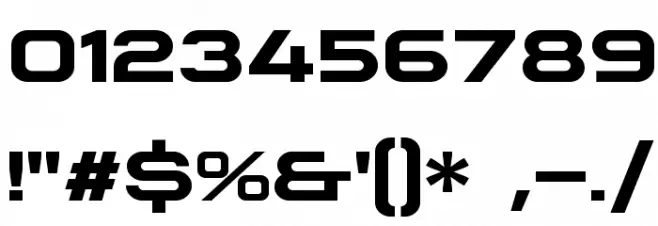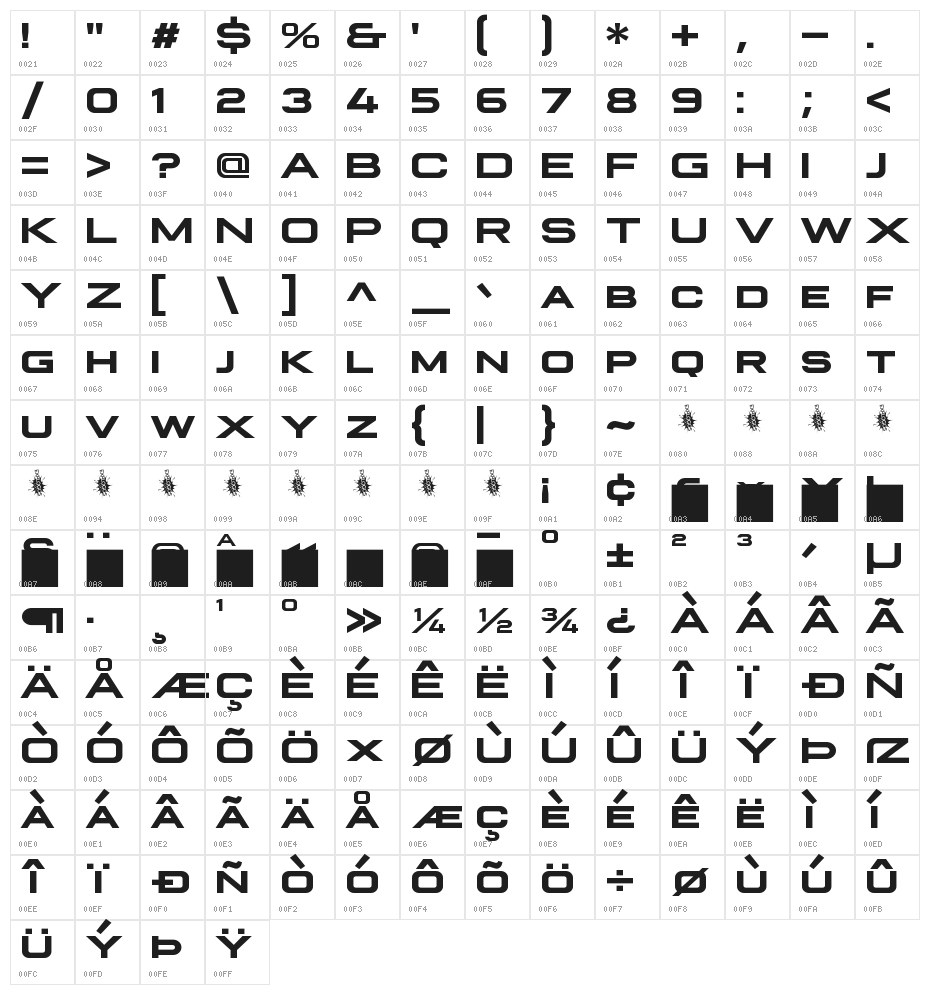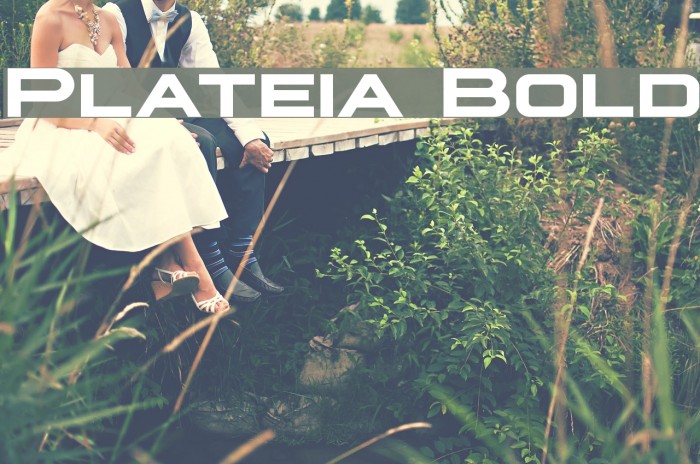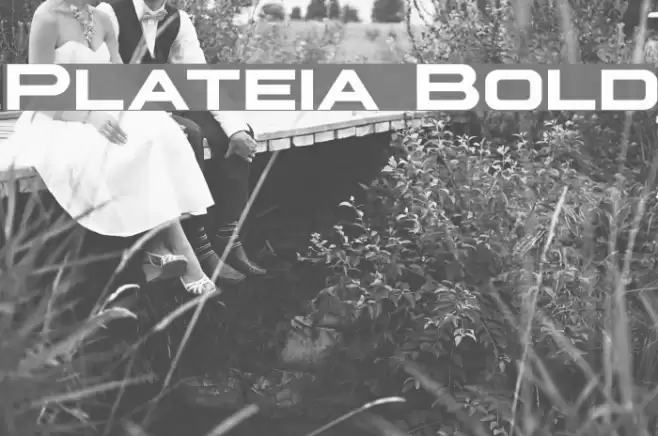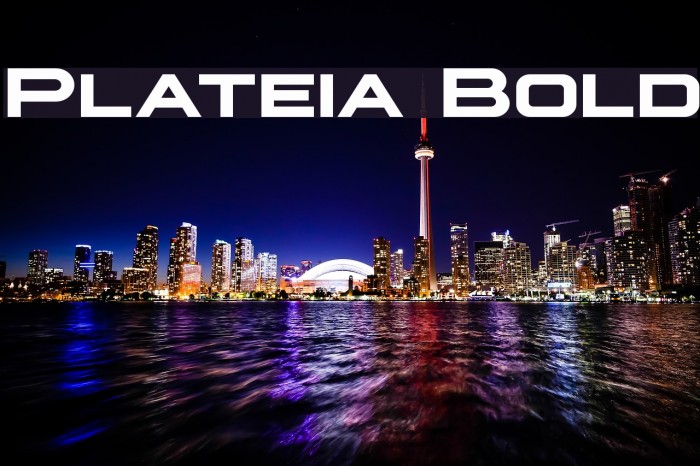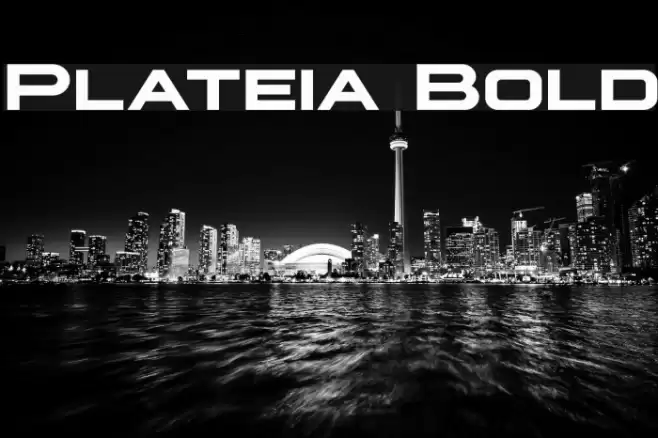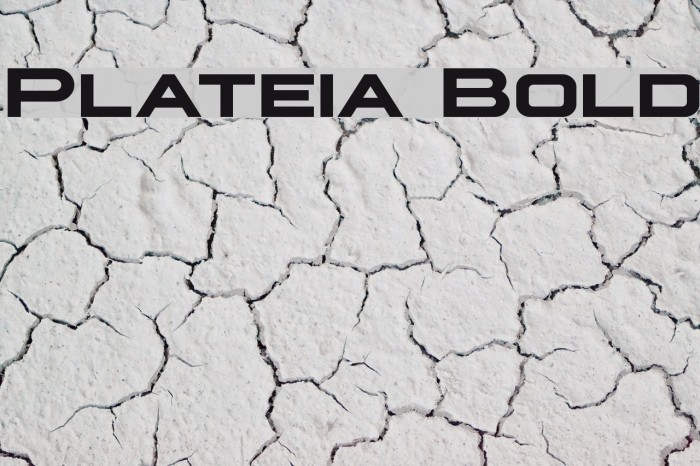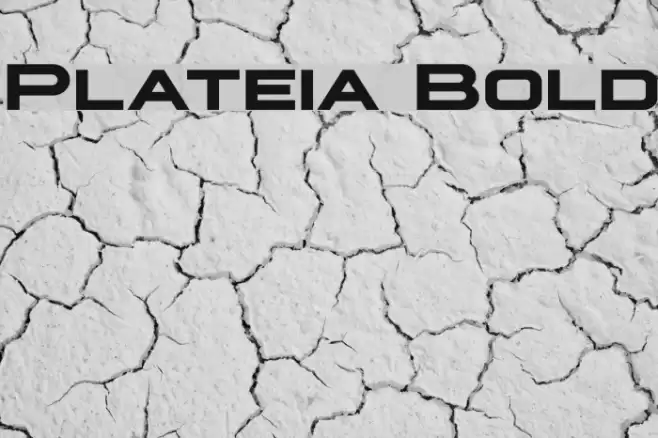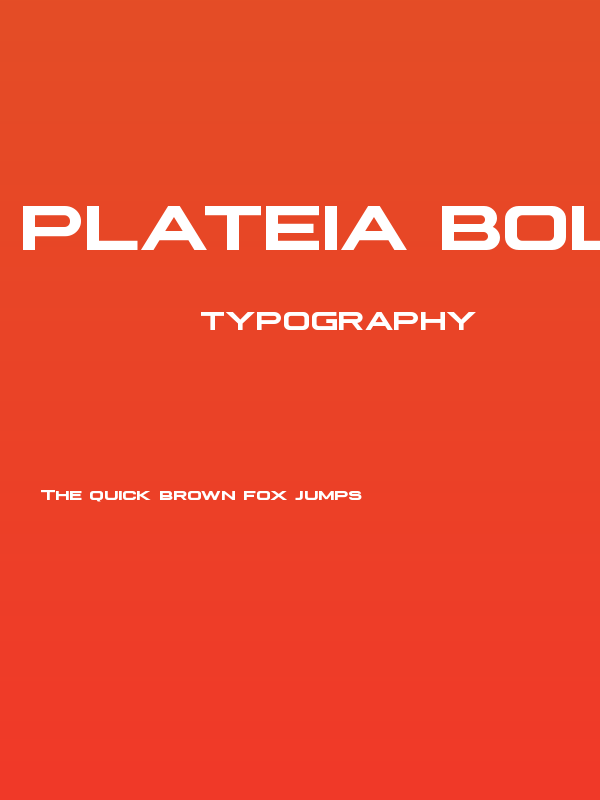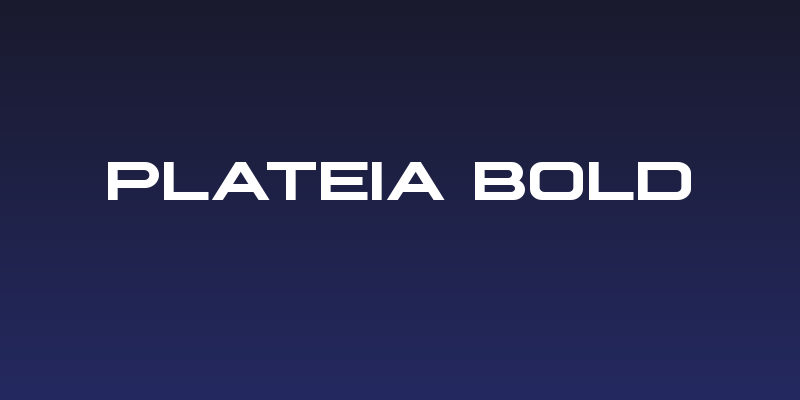
Plateia Bold Font
Plateia Bold Description
This font features a bold and modern design with a strong geometric structure. The characters are wide and have a consistent stroke thickness, giving them a robust and impactful appearance. The uppercase letters are particularly striking, with sharp angles and clean lines that convey a sense of strength and stability. The numerals and special characters maintain this bold aesthetic, ensuring uniformity across all glyphs. The font's style is suitable for making a statement, with its clear readability and distinct presence.